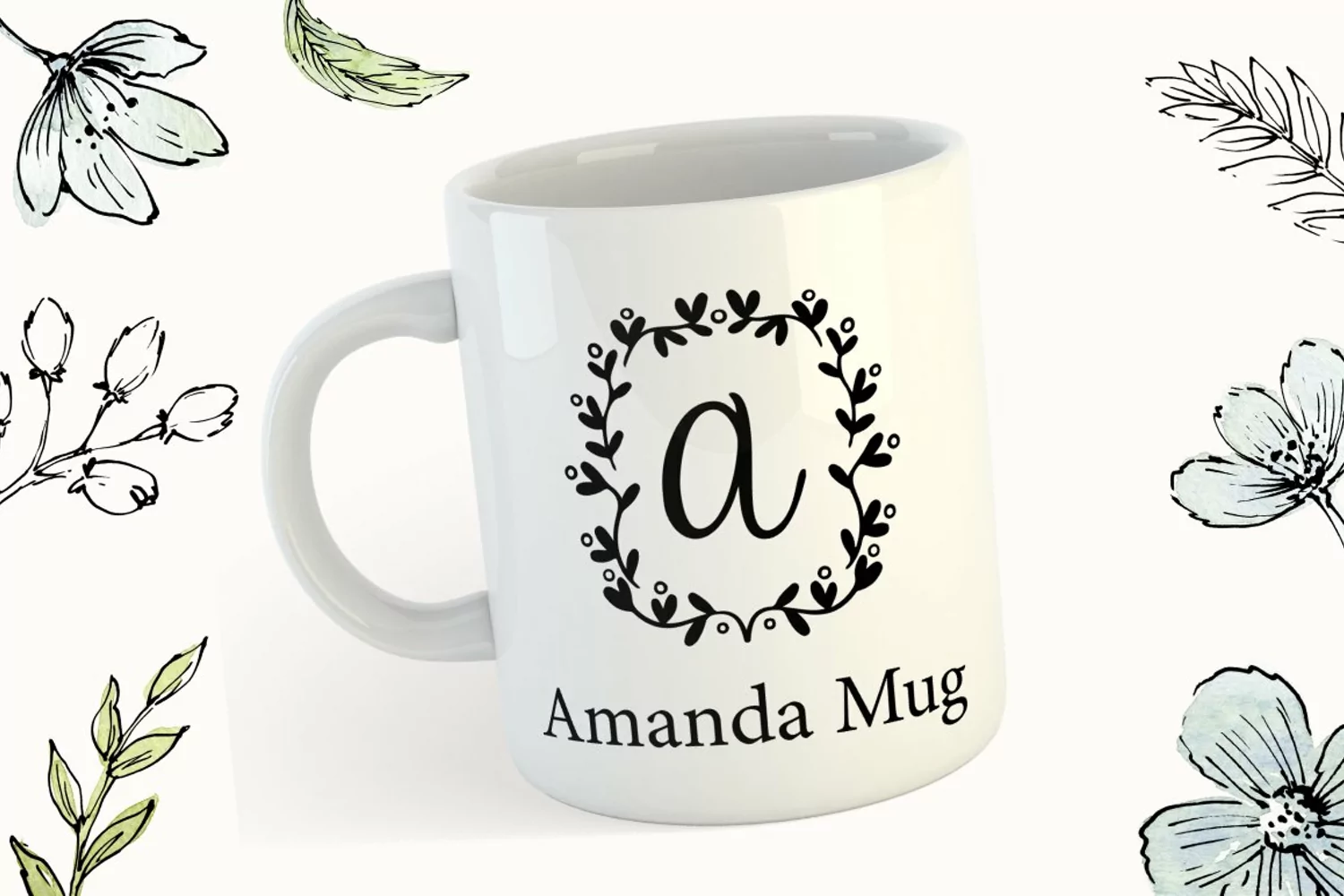
Olive Monogram is flower monogram font, Fall in love with beautiful lovely designs for your special occasions, business designs, logos, branding, social media posts, and wedding cards.
Comes in with 2 flower styles.
Just simply change between uppercase and lowercase to see the different styles!